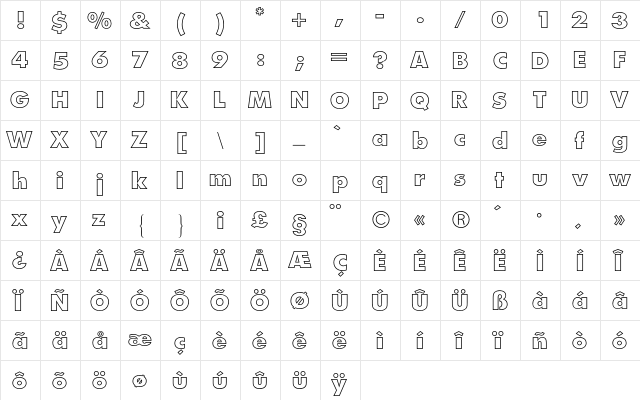
Futura BQ Regular
Design Context for Futura BQ Typeface
Futura BQ has a distinctly futuristic character, with geometric precision and clean angles that feel at home in technology, gaming, and sci-fi contexts.
Pro Tip: Use Futura BQ in combination with a neutral sans for body text. Let it define the brand voice in headlines while keeping reading comfortable elsewhere.